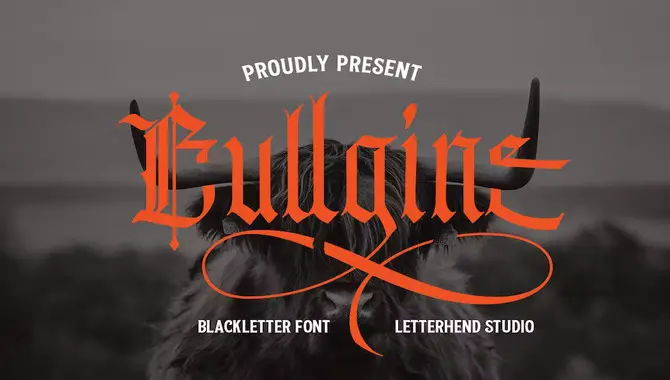
Halloween fonts are special fonts designed specifically for Halloween-themed designs. These fonts often feature spooky, eerie, or playful designs that evoke the spirit of the holiday.
With Halloween fonts, you can add a touch of fright and excitement to your Halloween invitations, posters, banners, and more. If ready, add some spookiness and style to your Halloween designs. Here we have curated a list of the 5 best Halloween fonts in Word that are guaranteed to give your creations a hauntingly stylish touch. From the creepy elegance of Mister Pumpkins to the chilling vibes of Dreadful, we have got you covered.
Each font comes with its own unique features and bonus vectors, making it easier than ever to create eye-catching Halloween designs. So whether you’re designing party invitations, flyers, or social media posts, these fonts will ensure that your Halloween creations stand out. Get ready to unleash your creativity and make this Halloween season truly unforgettable.
5 Best Halloween Fonts In Word – For Your Best Choice
Looking for the perfect Halloween font in Word? Look no further! We’ve curated five of the best choices to add a spooky and stylish touch to your Halloween-themed documents. Creepy Crypt, Witchy Wonders, Ghoulish Grunge, Jack-o-Lantern Jive, and Haunted Hallow are all great options to bring your designs to life. Whether you need fonts for invitations, flyers, crafts, or decorations, these choices won’t disappoint. Here discuss the 5 best Halloween fonts in Word:
1. Mister Pumpkins – Halloween Font With Bonus Vector
Mister Pumpkins is a charming font that captures the essence of Halloween with its spooky and playful design. With bonus vector graphics included, you can create unique and captivating Halloween-themed designs.
This font is compatible with Microsoft Word and other word-processing software, making it convenient to use. Whether you’re designing party invitations, flyers, posters, or other Halloween materials, Mister Pumpkins will add a stylish and personal touch. Embrace the spirit of Halloween and make your documents come alive with this captivating font.
2. Dreadful – A Spooky Typeface
Create chilling Halloween designs with Dreadful, a spooky and stylish font. Its jagged edges, distorted letterforms, and vintage-inspired look add a creepy vibe to any project. Perfect for Halloween party invitations, haunted house flyers, and more. Download Dreadful for free and unleash the spooky feel in your typography.
With lowercase letters, special characters, and scary glyphs, this font has it all. Ideal for banners, headings, or Halloween invitations. Use it for personal or commercial use, and let your creativity run wild. Don’t miss out on this charming font that will give your Halloween designs a spine-tingling touch.
3. Bitter Rose – Brush Font
Bitter Rose – Brush Font is a spooky font that adds a haunting look to your Halloween designs. With its hand-drawn feel and uneven strokes, it exudes an eerie and haunted vibe. This font includes uppercase and lowercase letters, numbers, and basic punctuation marks for various spooky designs. Whether you’re designing invitations, posters, banners, or social media graphics, Bitter Rose – Brush Font is the perfect choice to make your designs stand out. Embrace the spirit of Halloween with this captivating font.
4. Bullgine Blackletter
Bullgine Blackletter is a spooky and stylish font, perfect for Halloween projects. With its gothic lettering and decorative elements, it adds creepiness, mystery, and elegance to your designs. Use it for Halloween invitations, decorations, banners, and more. Bullgine Blackletter brings sophistication and can be easily downloaded for use in Microsoft Word. Try it for personalized Halloween graphics, invitations, or social media posts. Give your projects a special touch with this vintage-inspired font.
5. Night Still Comes Lite Serif Font
Night Still Comes Lite Serif Font is a hauntingly beautiful font perfect for Halloween designs. Its unique serif style and distressed appearance add an eerie touch to any project. Use it for invitations, posters, and social media graphics to create a spooky atmosphere.
This versatile font is readable and ideal for Halloween-themed documents, banners, typography, horror movies, and social media graphics. It includes lowercase letters, numerals, and basic punctuation for stylish and spooky designs. Bring your Halloween creations to life with Night Still Comes Lite Serif Font’s unique look and charming style.
If you want to add a spooky and stylish touch to your Halloween-themed designs, these five fonts are perfect. Whether you’re creating invitations, posters, or social media graphics, these fonts will give your text a hauntingly beautiful look. Each font has its own unique style, from the elegant eeriness of Bitter Rose to the chilling vibes of Dreadful.
By incorporating these fonts into your Word documents, you can bring your Halloween creations to life and leave a lasting impression on your audience. Don’t wait any longer – download these fonts now and get ready to showcase your spooktacular designs. Hope the above outline on the best Halloween fonts in Word will be very helpful for you in choosing the right font.
5.Who Says Typefaces Can’t Be Happy And Scary At The Same Time?
Ans: Designers and typographers have shown that typefaces can evoke both happiness and scariness. You can achieve the desired effect with a careful selection of typography, colors, and design elements. Fonts like “Creepster,” “Bangers,” and “Boogaloo” strike a balance between these emotions. Experiment with different fonts and design techniques to create beautiful Halloween-themed typography.